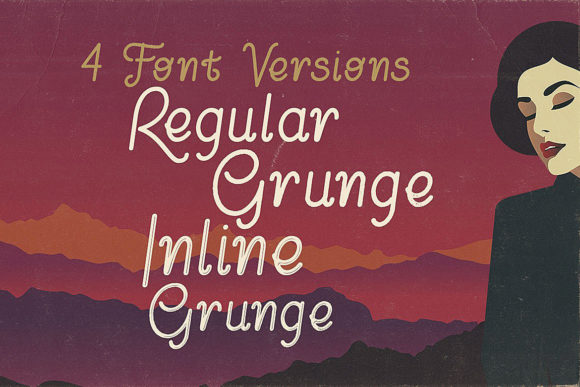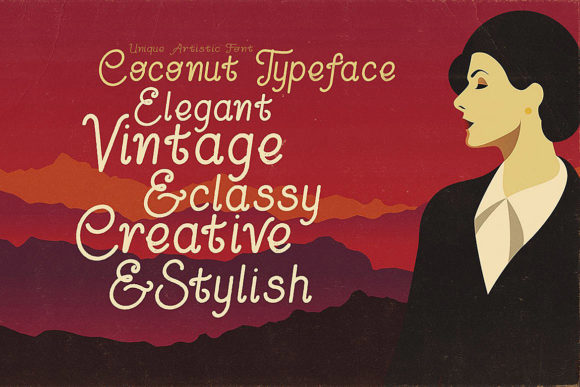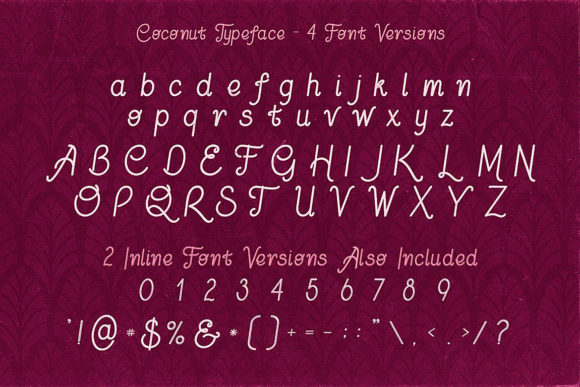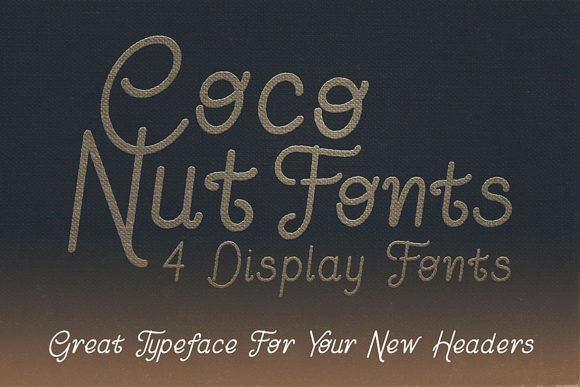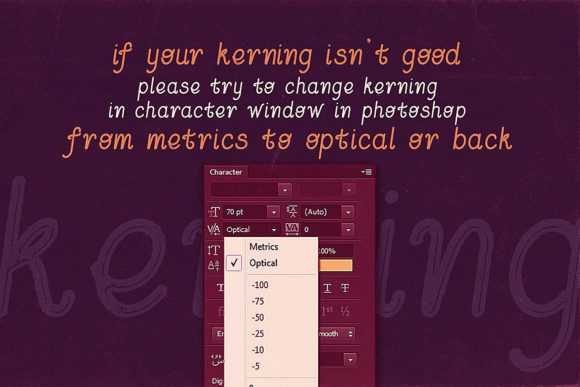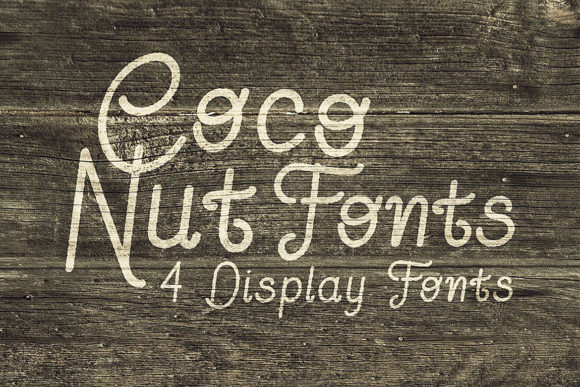
Introduction to Coconut Family Font Font
Fonts play a crucial role in design, and the Coconut Family Font font is a typeface that brings both character and versatility to any project. Whether you’re working on a branding project, a website, or a print design, the Coconut Family Font font offers a unique style that can elevate your work.
The Coconut Regular is an unique, retro-vintage & grunge style display font.
It includes 4 styles which can be combined perfectly, giving you the opportunity to create multiple unique designs in an instant Kerning instructions: – Please change kering from metrics to optical (or back) in Photoshop characters window (please check image in this zip file).
The Coconut Family Font font is more than just a typeface – it’s a design tool that helps you communicate your message with style and clarity. Its unique character set and versatile design make it suitable for a wide range of applications, from elegant invitations to bold headlines.
With its carefully crafted letterforms and balanced proportions, the Coconut Family Font font ensures readability and visual appeal across all mediums.
What makes Coconut Family Font font special?
The Coconut Family Font font stands out with its unique design, exceptional readability, and versatility across various design applications.